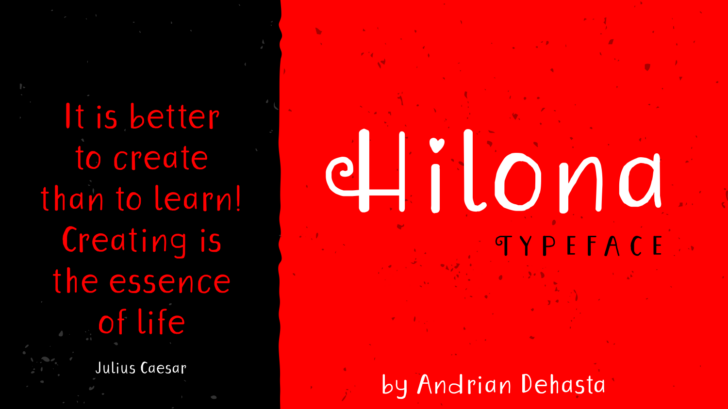
Hilona Font
About Hilona Font
Hilona is a charming serif font with a handwritten style and appeal.  This font looks great with sweet messages, and is legible enough to be used as a body text.